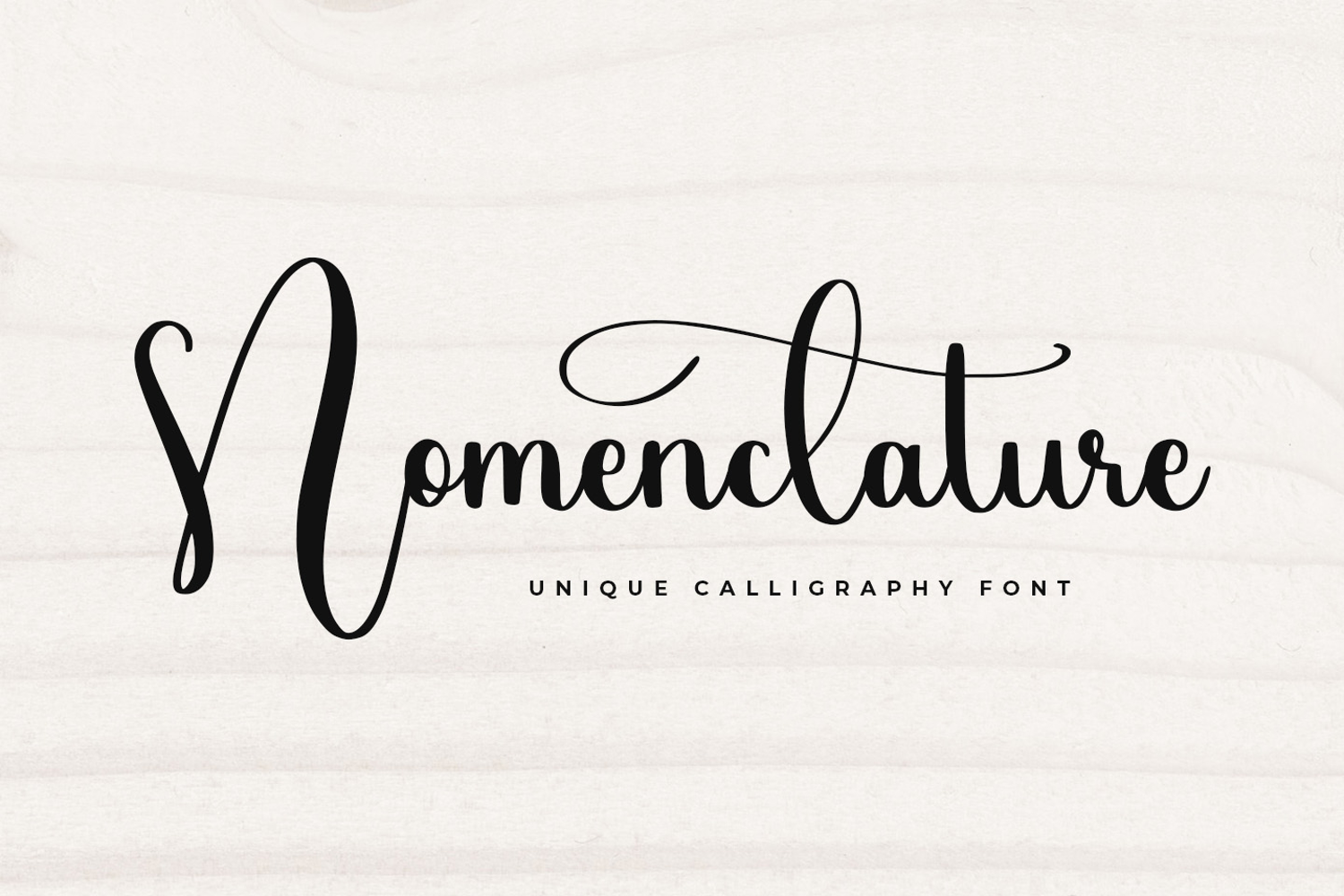
Nomenclature
introducing
NOMENCLATURE
- unique calligraphy font-
NOMENCLATURE is beautiful calligraphy font.
It is great for branding, quotes, logos, t-shirt designs, tote bag designs, cards, banners, social media, and more.